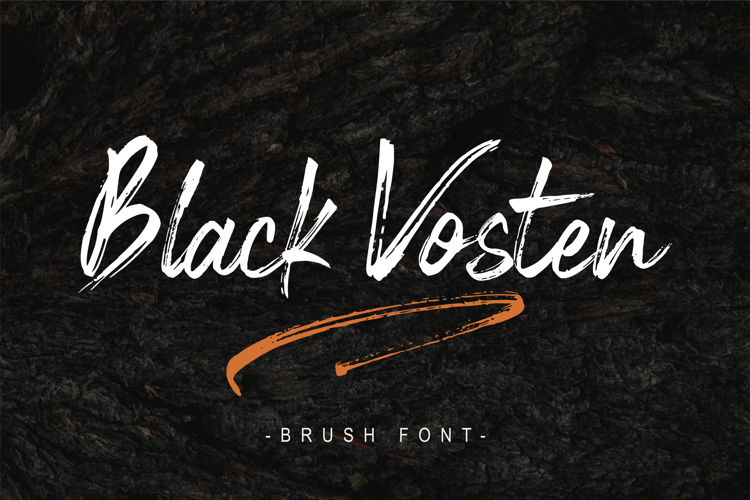
Black Vosten Font
About Black Vosten Font
Black Vosten is a textured brush font with a contemporary design style. Made with a brush on paper, then scanned and carefully drawn into vector format. It has a charming, authentic and relaxed feeling and is perfect for adding a natural touch to your design. Fall in love with unique and authentic letters!